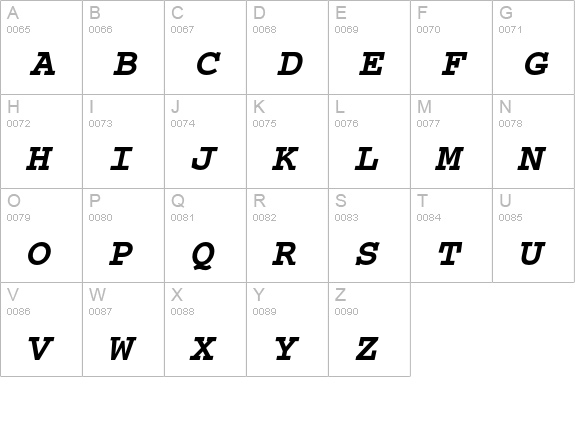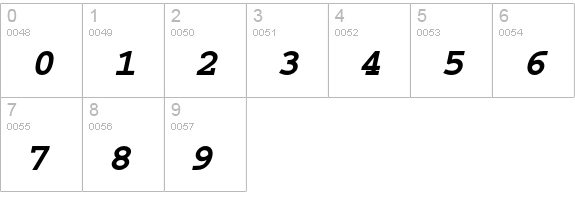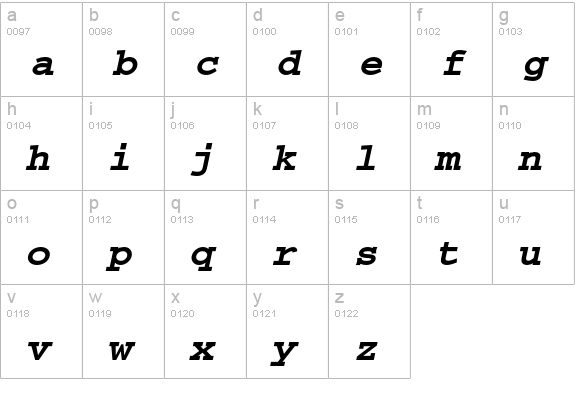
Courier Bold Oblique is a strong, high-contrast, italic variant in the Courier typeface family \xE2\x80\x94 well suited to headlines, attention-grabbing titles, and strong calls-to-action.
Courier Bold Oblique font is a stylish and versatile typeface that adds a touch of sophistication to any design. Its bold and slanted appearance exudes a sense of confidence and professionalism, making it the perfect choice for projects that require a bold statement. The distinctive slant of the characters gives the text a dynamic and modern look, while still maintaining the classic feel of the Courier font family. Best of all, Courier Bold Oblique is available for free download at FontsMarket.com. This means that you can easily access this high-quality font without having to break the bank. Whether you're working on a print project, a digital design, or anything in between, Courier Bold Oblique is sure to make a bold impression. Download it today and elevate your designs with this standout typeface.